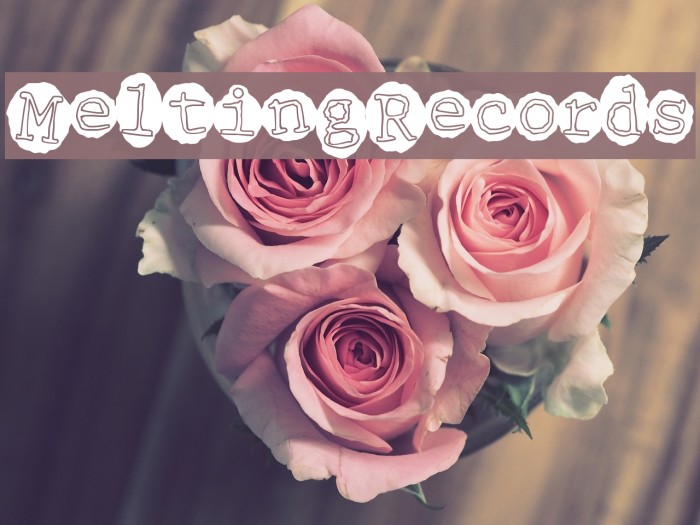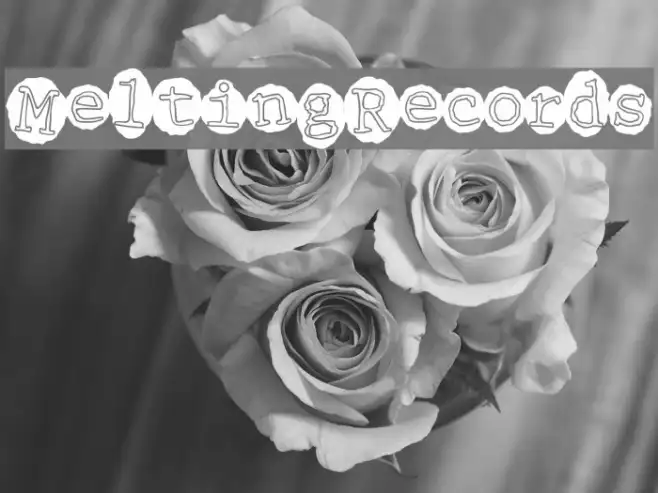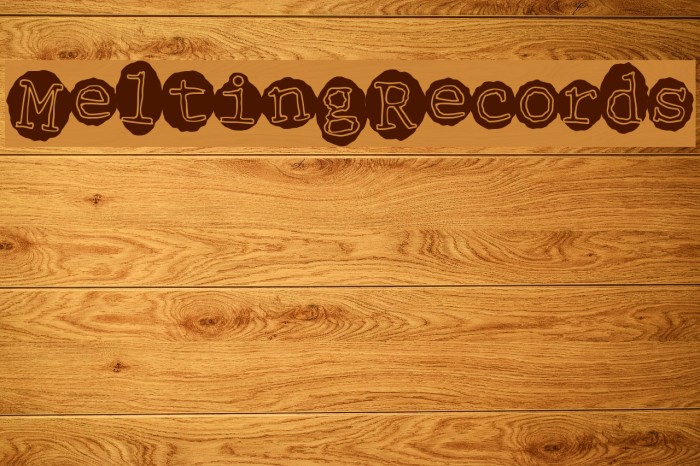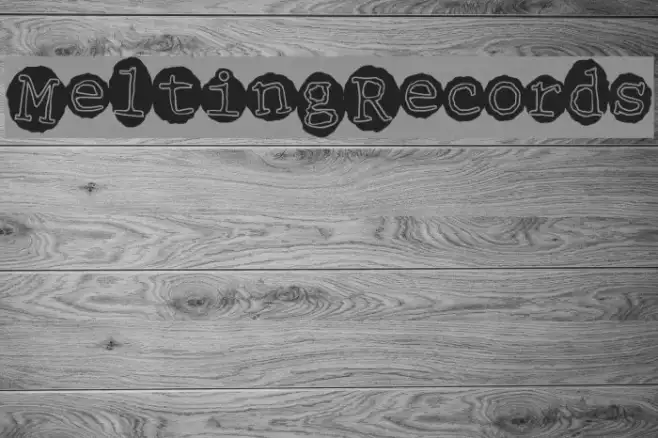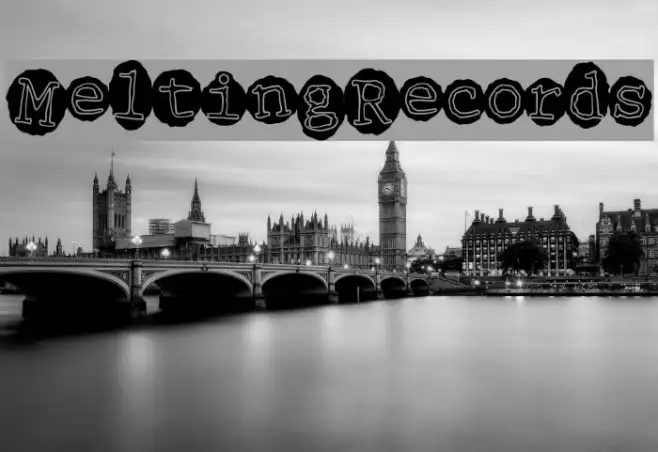
MeltingRecords Font
MeltingRecords Description
This font features a unique and playful design where each character appears to be melting or dripping, creating a dynamic and eye-catching effect. The letters are bold and outlined, set against a solid black background that enhances their visibility and impact. The uppercase and lowercase letters maintain a consistent style, with rounded edges and a slightly irregular shape that adds to the whimsical feel. Numbers and special characters follow the same design principles, ensuring a cohesive look across all elements. This font's distinctive style makes it ideal for projects that require a bold and creative touch.
| Proposed Projects | Perfect for album covers, posters, event flyers, and any creative project needing a bold, artistic touch. |